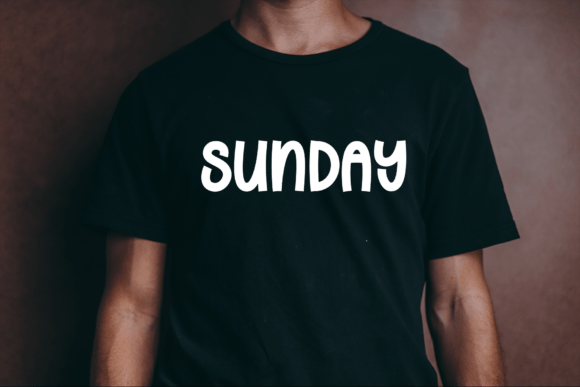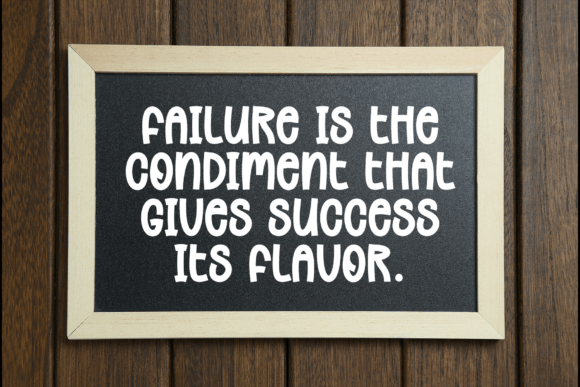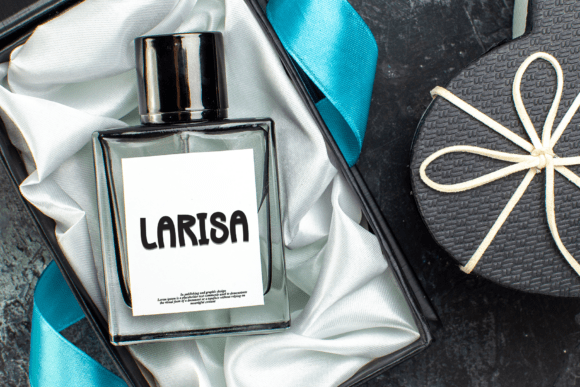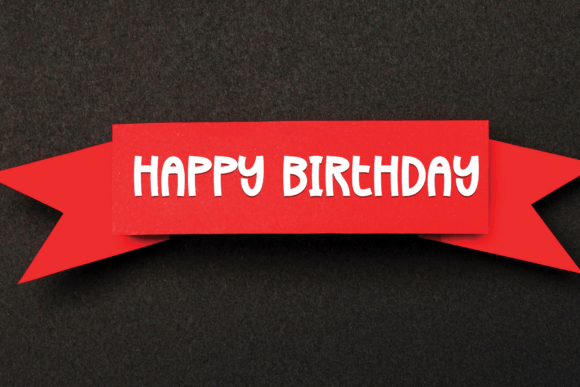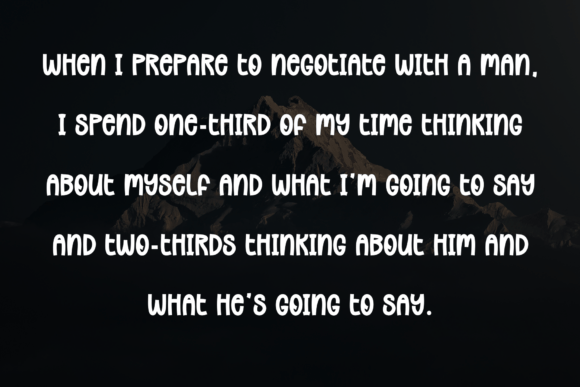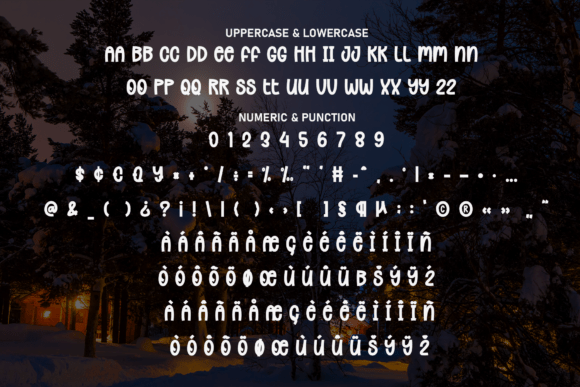
Introduction to Night Winter Font
There’s nothing quite like the feeling of huddling up by the fireplace on a cold winter’s night, surrounded by twinkling lights and the warmth of loved ones. It’s a moment that sparks creativity and inspires us to bring a little bit of that magic into our designs. And what better way to do that than with a font that embodies the essence of winter itself?
Enter the Night Winter Font, a bold and quirky display font that’s sure to add a touch of whimsy to your creative projects. With its tall, wavy letters and hand-drawn feel, this font is perfect for winter-themed posters, cozy product packaging, children’s books, and branding that needs a little extra oomph. Whether you’re working on a design resource or just looking for a fun way to express yourself, the Night Winter Font is a valuable addition to any designer’s toolkit.
Key Features of Night Winter Font
- Unique, high-quality design that adds a touch of elegance to any creative project
- Perfect for use in winter-themed designs, holiday projects, and cold-weather inspired creative projects
Honest Review: Night Winter Font
I recently stumbled upon the Night Winter Font while searching for a design resource to add a touch of elegance to my latest creative project. After giving it a try, I’d like to share my honest review with you.
- ✨ The Night Winter Font offers a beautiful, high-quality design that’s perfect for adding a touch of sophistication to your projects.
- ⚠️ The font may not be ideal for body text due to its ornate design, which can be difficult to read in large quantities.
- ⚠️ The font’s high-quality design also means it can be quite heavy, which may not be suitable for designs where simplicity is key.
Overall, I’m impressed with the Night Winter Font’s beauty and versatility. While it may have some limitations, it’s an excellent choice for designers looking to add a touch of elegance to their creative projects.
The Night Winter Font is a high-quality design resource ideal for creative projects. It features a unique and elegant style, perfect for various applications.
The Night Winter Font is perfect for various creative projects, including:
- Blog posts and articles